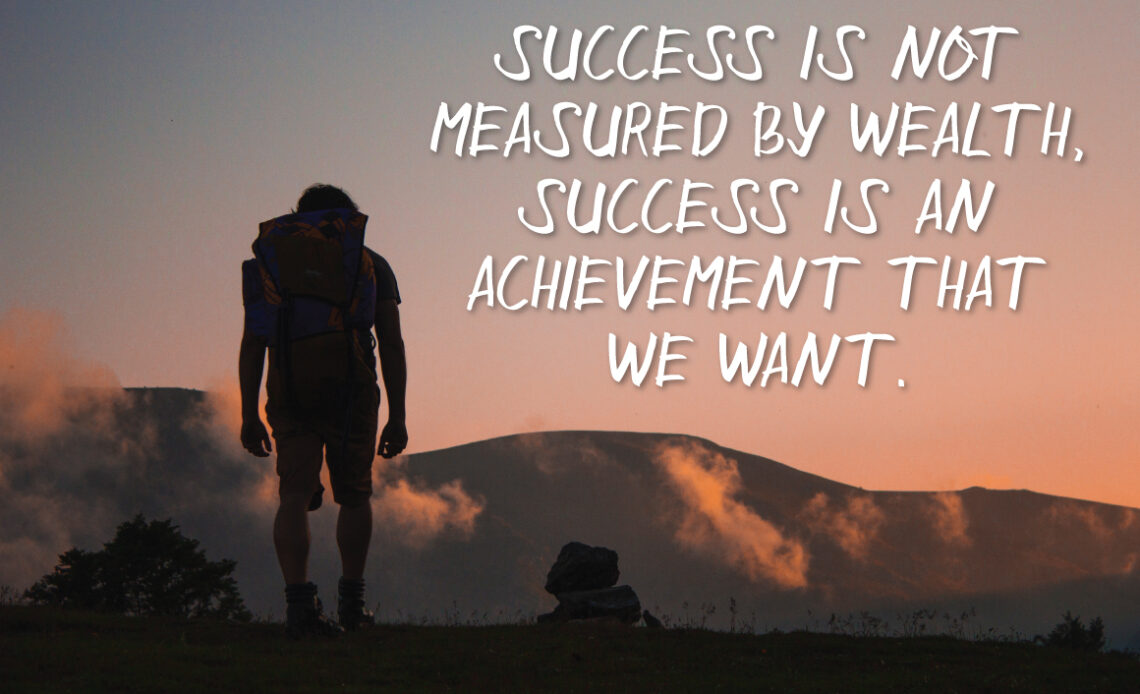
Sangkalaen Font
Font Name : Sangkalaen Font
Author : Atjcloth Studio
Enter the enchanting realm of Sangkalaen, a script font that embodies elegance and grace, tailored specifically for those seeking a touch of sophistication in their digital creations. This captivating font family invites you to embark on a journey of artistic expression, transforming your words into captivating visual masterpieces.
Sangkalaen is more than just a collection of letters; it's an art form meticulously crafted by the renowned Atjcloth Studio. Each character dances across the screen with an air of effortless beauty, beckoning you to explore the boundless realms of creativity. Its clean lines, delicate curves, and subtle variations in thickness evoke a sense of timeless elegance, reminiscent of handwritten love letters and cherished memoirs.
With Sangkalaen, you hold the power to transform ordinary text into extraordinary narratives. Whether crafting heartfelt invitations, designing eye-catching logos, or adding a personal touch to your social media posts, this versatile font family effortlessly elevates your content, making it shine with newfound allure.
Immerse yourself in the world of Sangkalaen and discover the endless possibilities it presents. Experience the joy of creating designs that captivate and inspire, leaving an unforgettable impression on all who behold them. Unleash your creativity and embrace the boundless potential that awaits you with Sangkalaen.